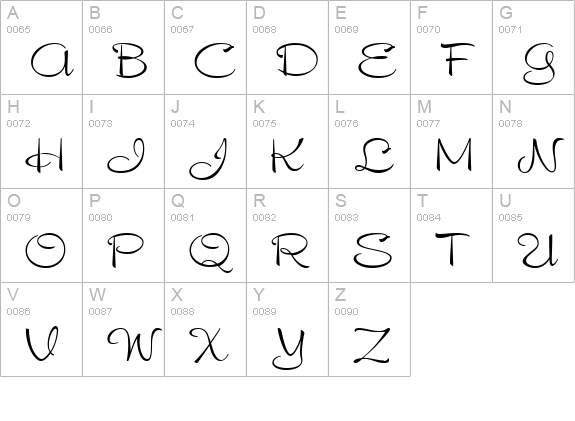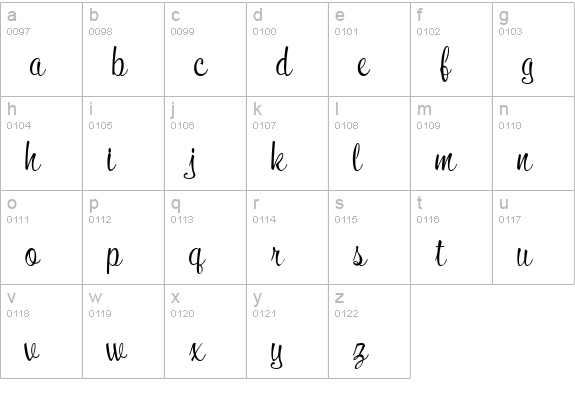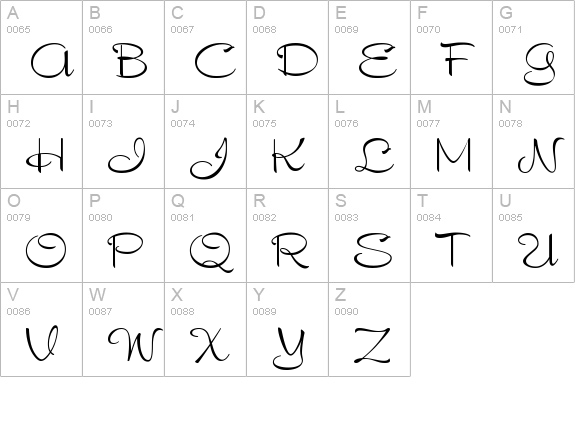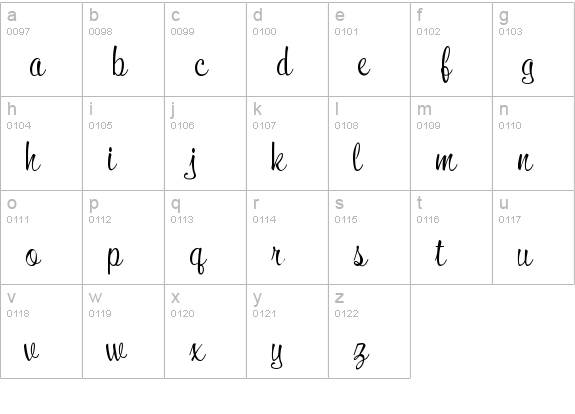
KonTikiEnchantedJF Font Details
KonTikiEnchantedJF is a stunningly elegant and whimsical font that transports you to a world of enchantment and magic. Its graceful curves and intricate details make it perfect for adding a touch of charm to your designs. This font exudes a sense of fantasy and wonder, making it ideal for projects that require a touch of mystique. What makes KonTikiEnchantedJF even more appealing is that it is completely free to download at FontsMarket.com. This means you can easily access this beautiful font and use it in your personal or commercial projects without any cost. Embrace the magic of KonTikiEnchantedJF and bring a touch of enchantment to your designs today.